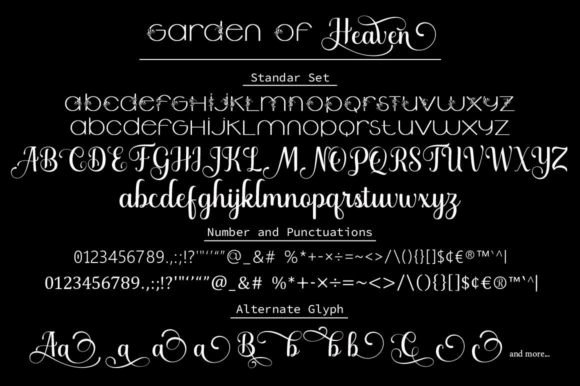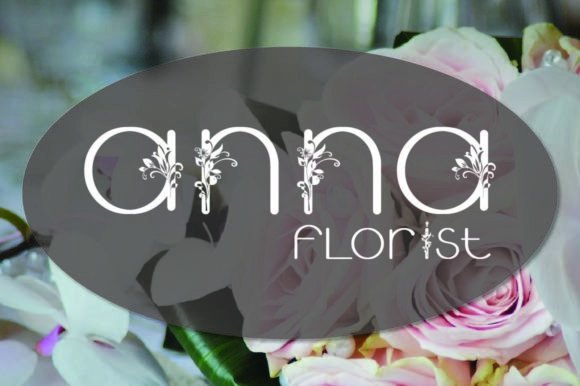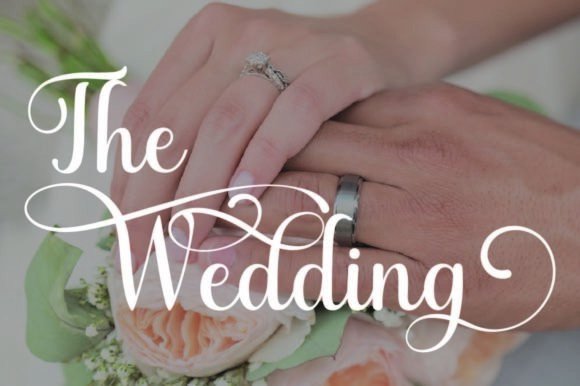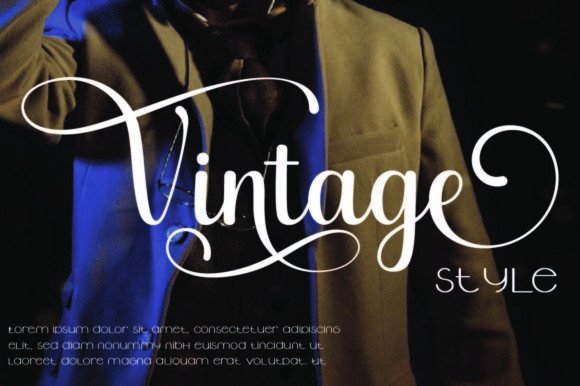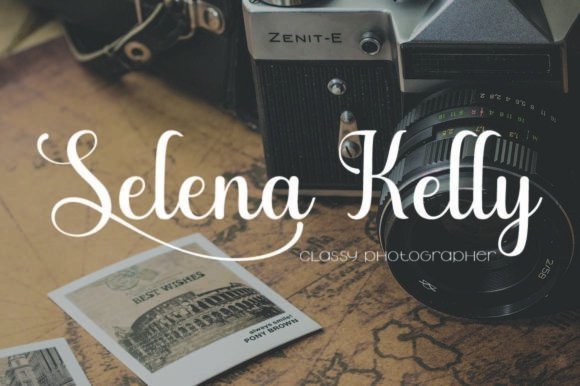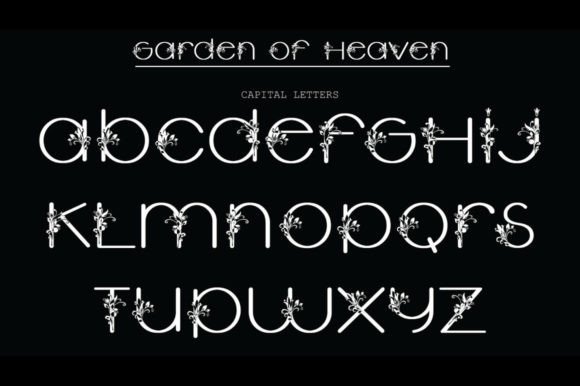
Garden of Heaven Font: Elevate Your Crafts with Chic and Cheery Typography
Are you a designer or crafter looking for the perfect font to add a touch of elegance and playfulness to your projects? Look no further than the Garden of Heaven Font, a stunning duo of fonts designed to complement each other perfectly. In this article, we’ll dive into the features and benefits of this beautiful font, and explore how it can elevate your crafts and designs.
A Perfect Pair: Decorative and Modern Calligraphy Fonts
Garden of Heaven Font consists of two unique fonts that work together in harmony. The first font is a decorative font with a touch of flowers, adding a whimsical and romantic feel to your projects. The second font is a modern calligraphy font, providing a sleek and sophisticated look. Whether used together or apart, these fonts are ideal for adding a chic and cheery touch to your crafts, designs, and creative projects.
One of the standout features of the Garden of Heaven Font is its PUA (Private Use Area) encoding. This means that you can access all of the glyphs and swashes with ease, giving you complete creative control over your projects. With PUA encoding, you can effortlessly insert special characters, ligatures, and ornaments into your designs, taking them to the next level.
The Garden of Heaven Font is incredibly versatile, making it perfect for a wide range of creative projects. Here are just a few ideas to get you started:
- Stationery and invitations: Add a touch of elegance and sophistication to your stationery and invitations with the modern calligraphy font, or create whimsical and playful designs with the decorative font.
- Crafting and scrapbooking: Use the Garden of Heaven Font to add a personal touch to your scrapbooking and crafting projects, creating unique and eye-catching designs that showcase your creativity.
- Branding and packaging: Elevate your brand with the Garden of Heaven Font, using it to create stunning logos, labels, and packaging that sets you apart from the competition.
- Digital design: Use the font to create engaging and visually appealing digital content, such as social media graphics, blog posts, and website headers.
Why Choose the Garden of Heaven Font?
So why choose the Garden of Heaven Font over other fonts on the market? Here are just a few reasons:
- Unique and eye-catching design: The Garden of Heaven Font is a truly unique and eye-catching design that will set your projects apart from the crowd.
- High-quality and versatile: The font is of exceptionally high quality, making it suitable for a wide range of creative projects and applications.
- Easy to use: With PUA encoding, the font is incredibly easy to use, even for those with limited design experience.
In conclusion, the Garden of Heaven Font is a stunning duo of fonts that are perfect for designers and crafters looking to add a touch of elegance and playfulness to their projects. With its unique and eye-catching design, high-quality and versatility, and ease of use, this font is an excellent choice for anyone looking to elevate their crafts and designs. So why wait? Download the Garden of Heaven Font today and start creating stunning projects that showcase your creativity!